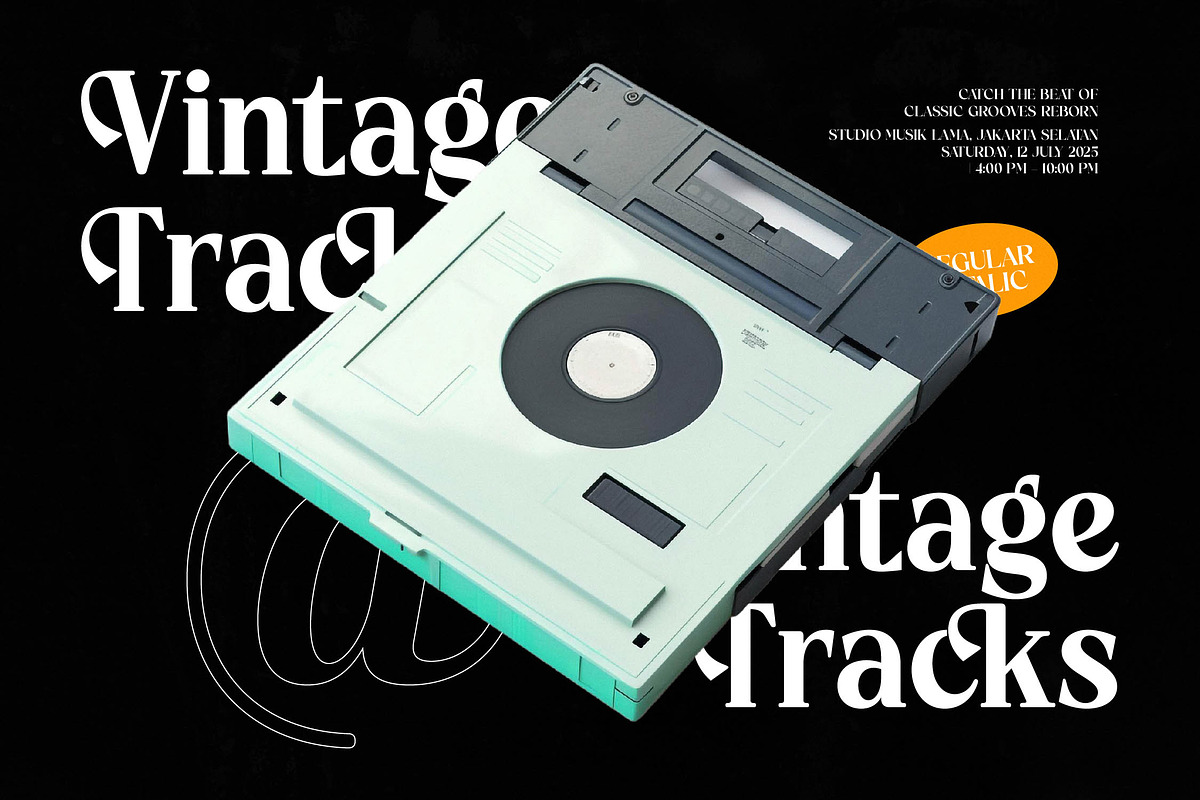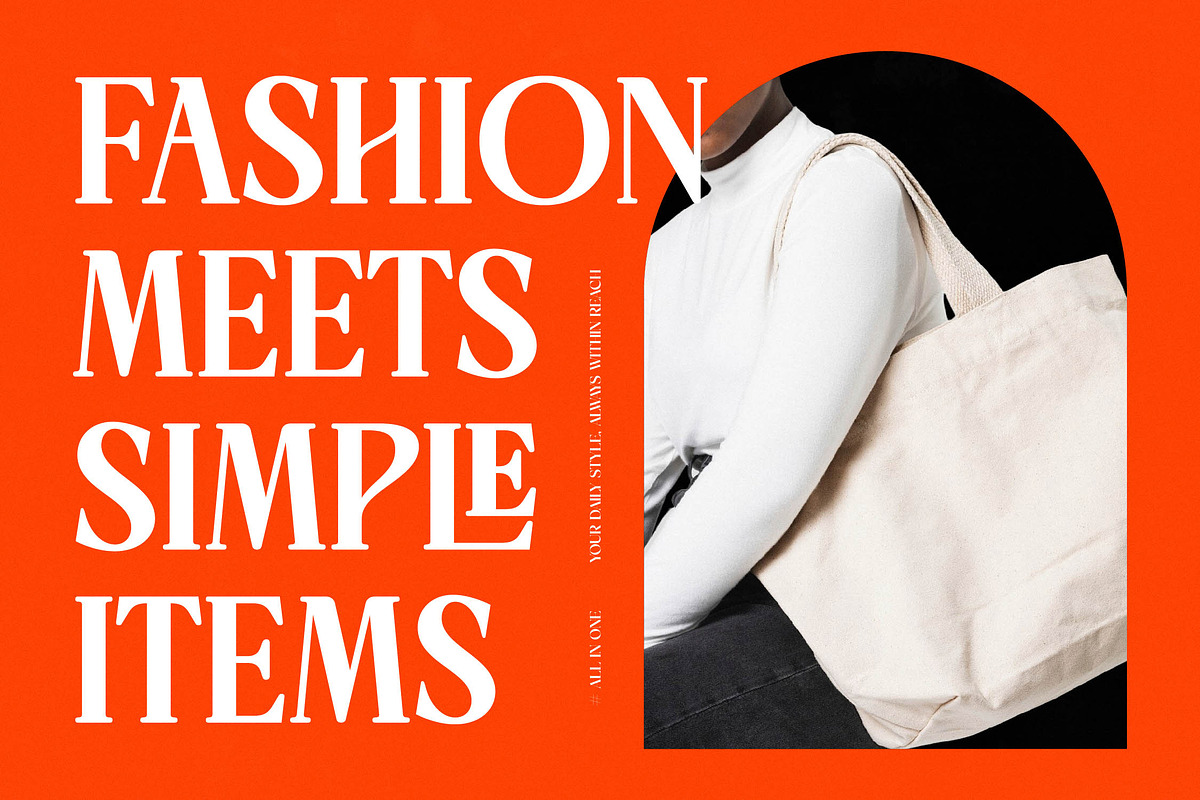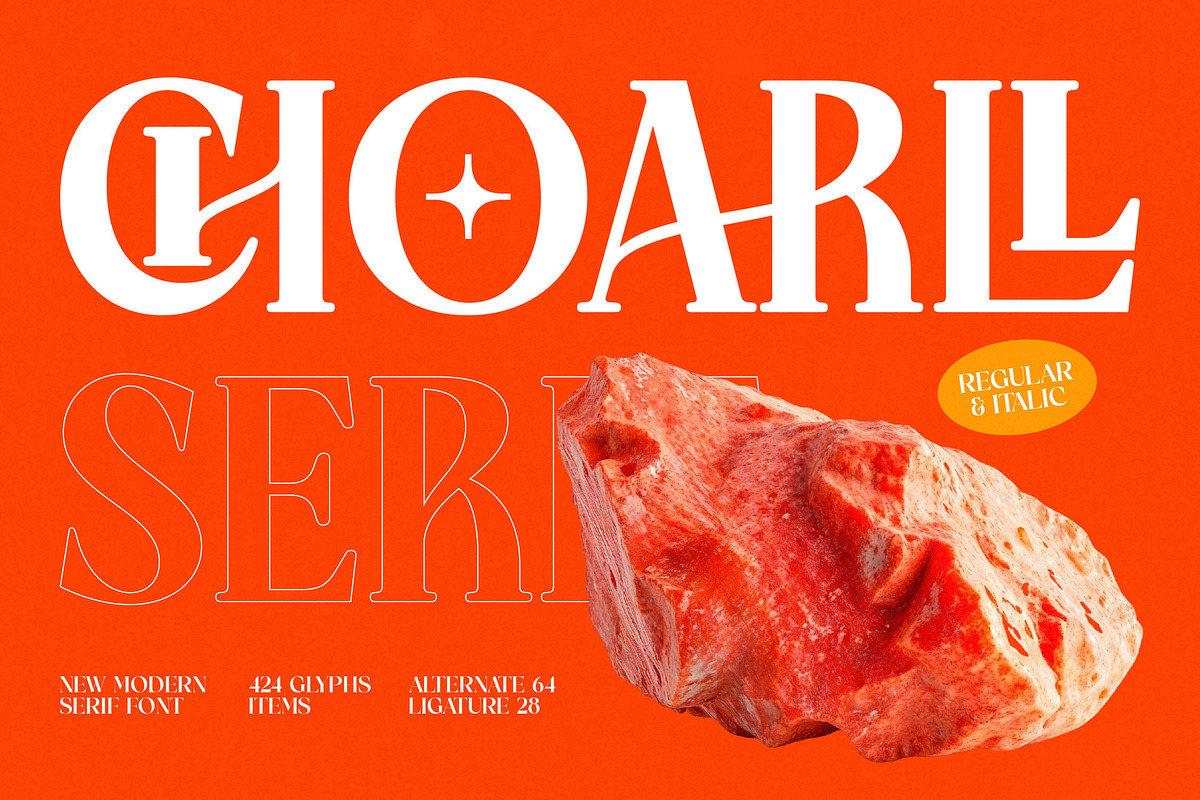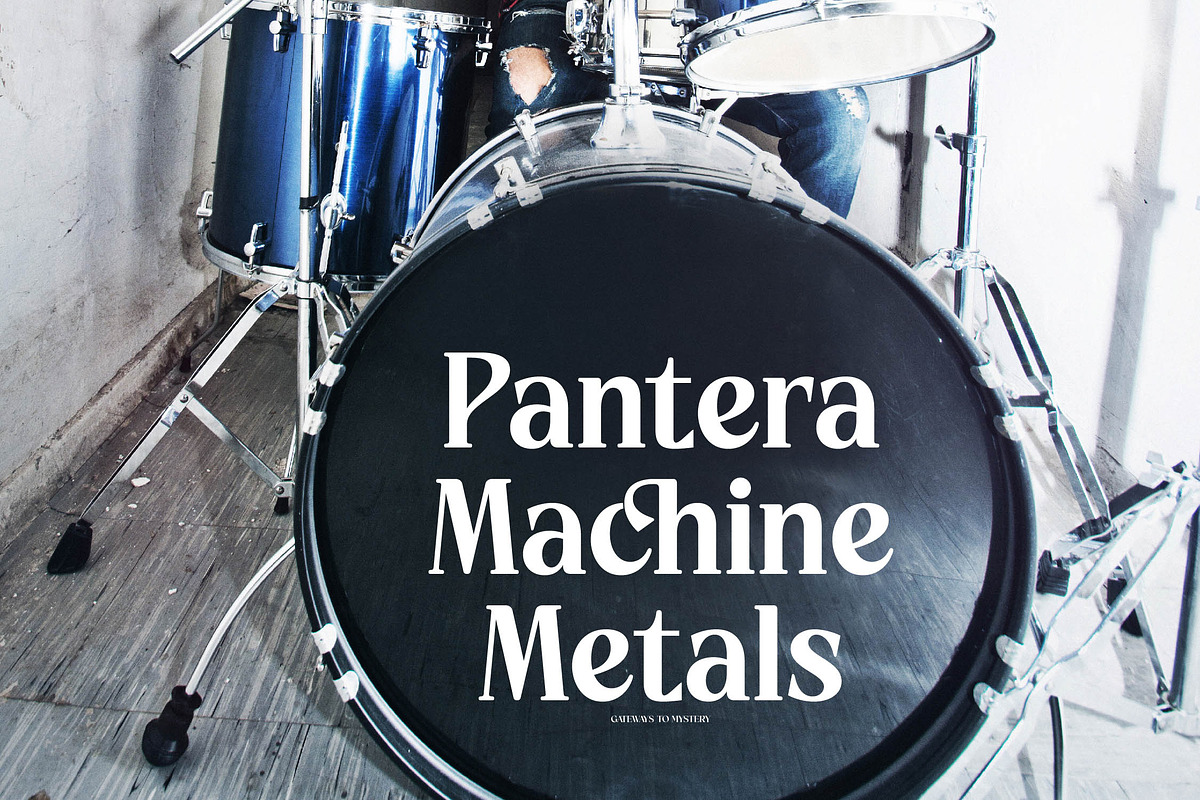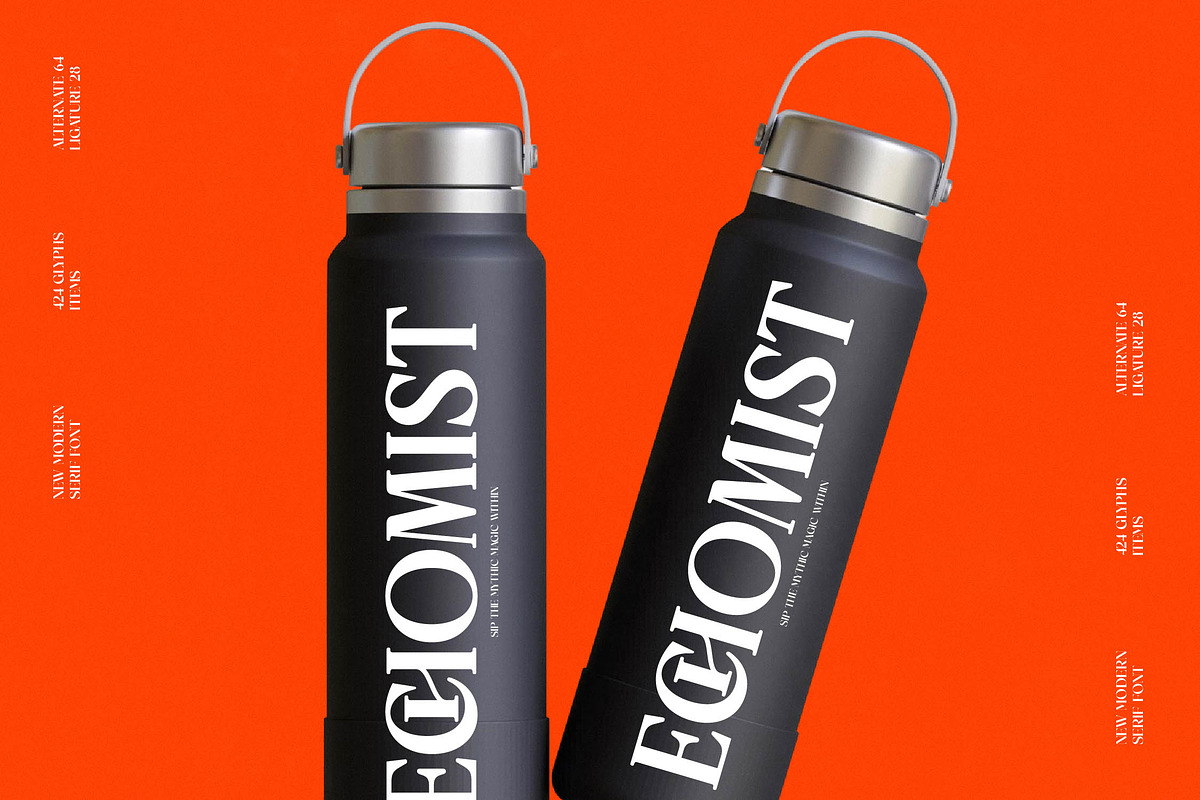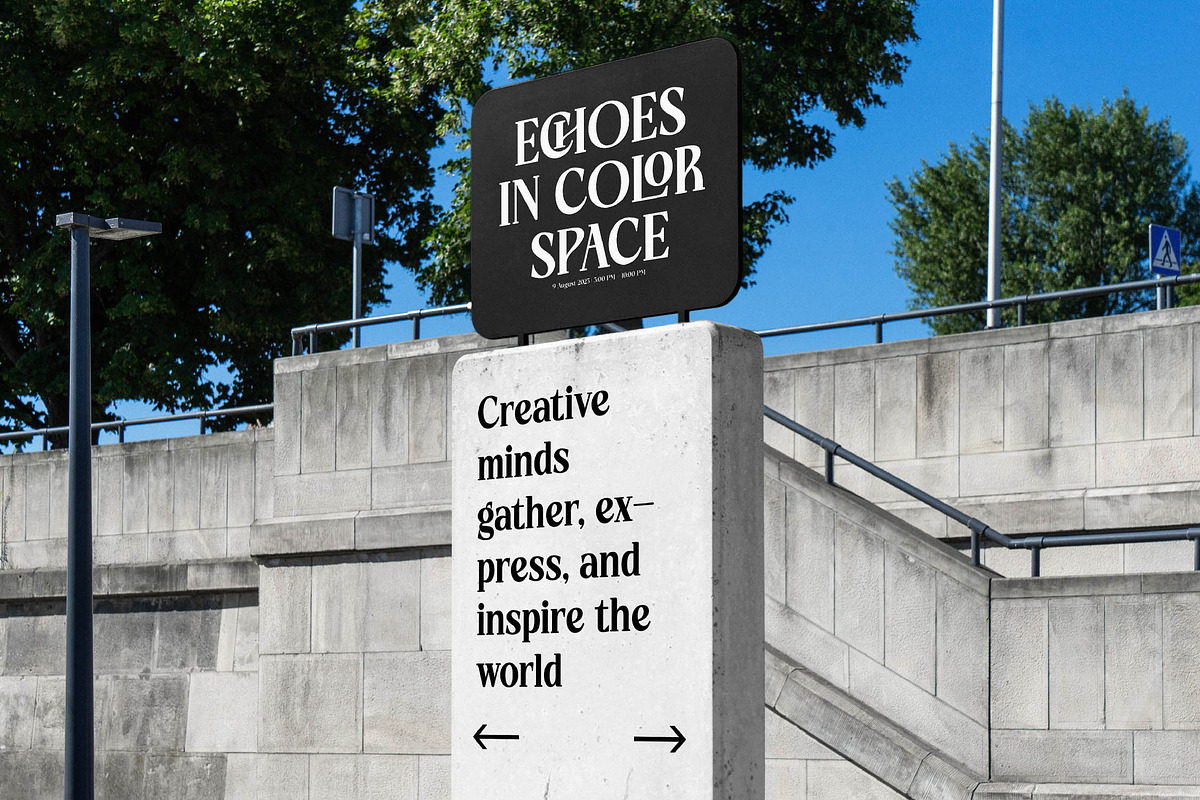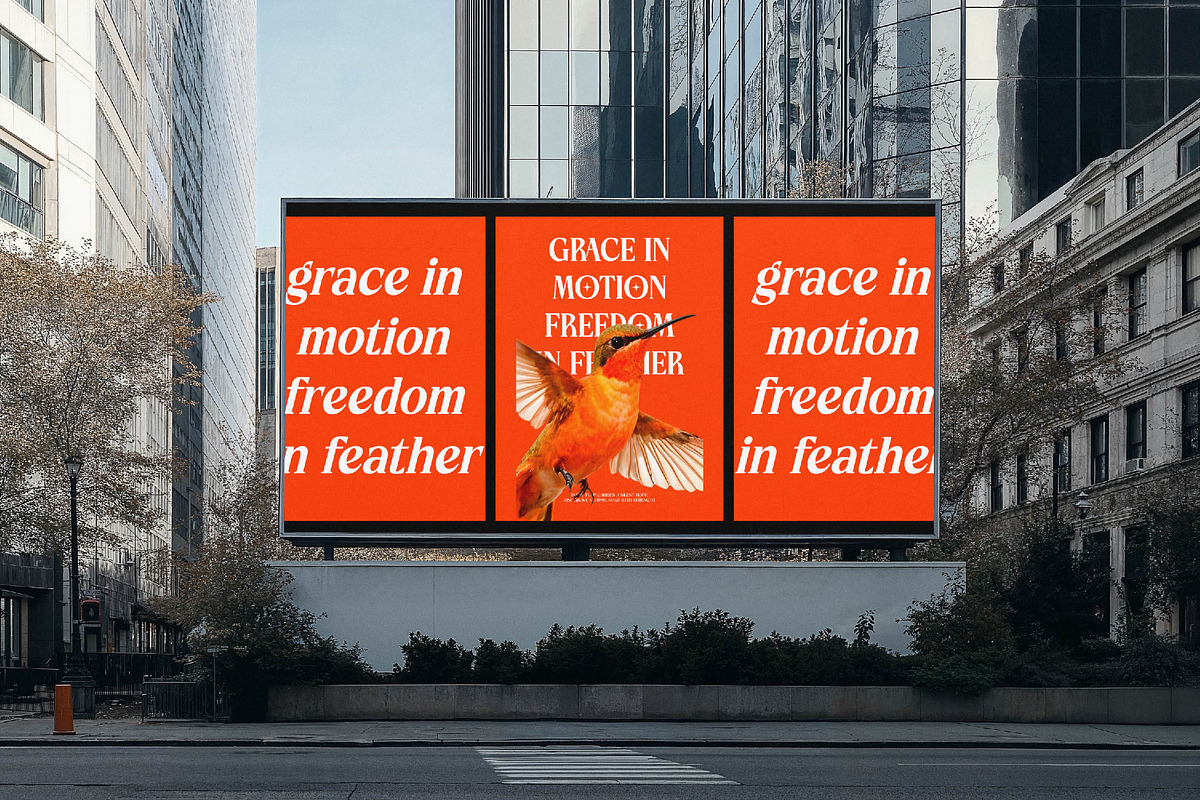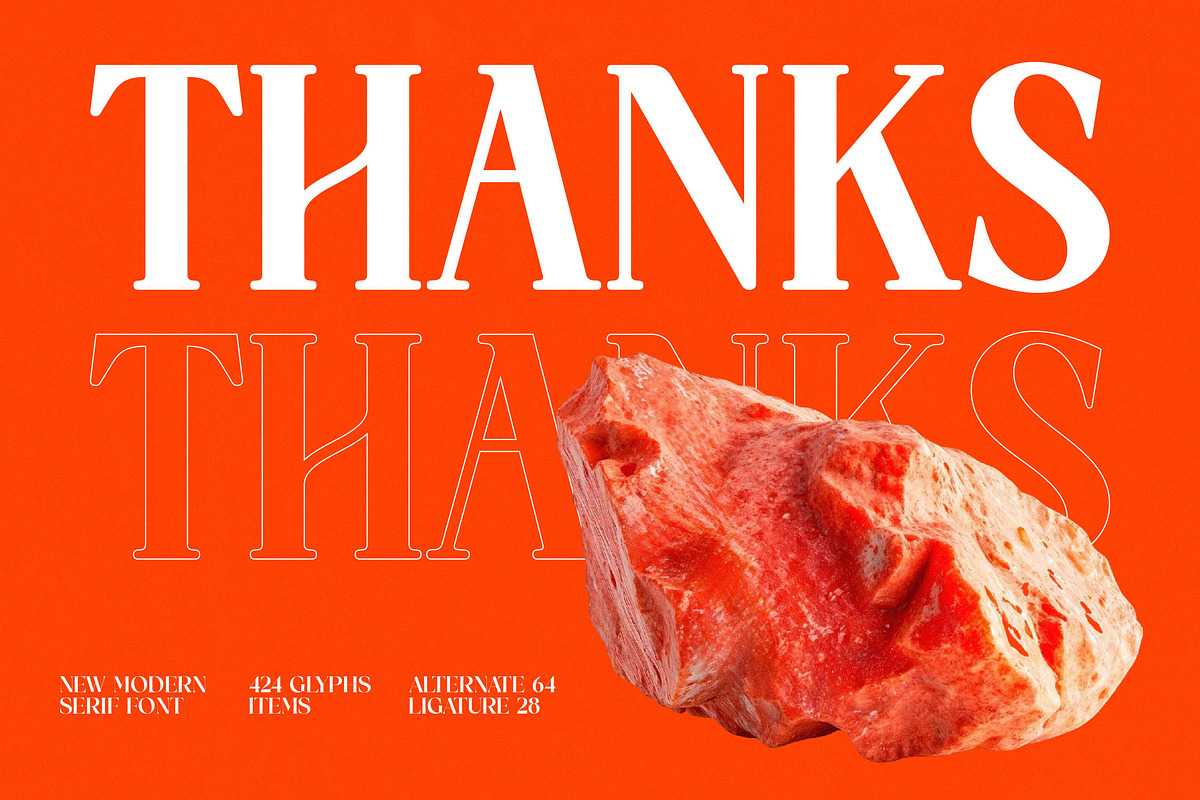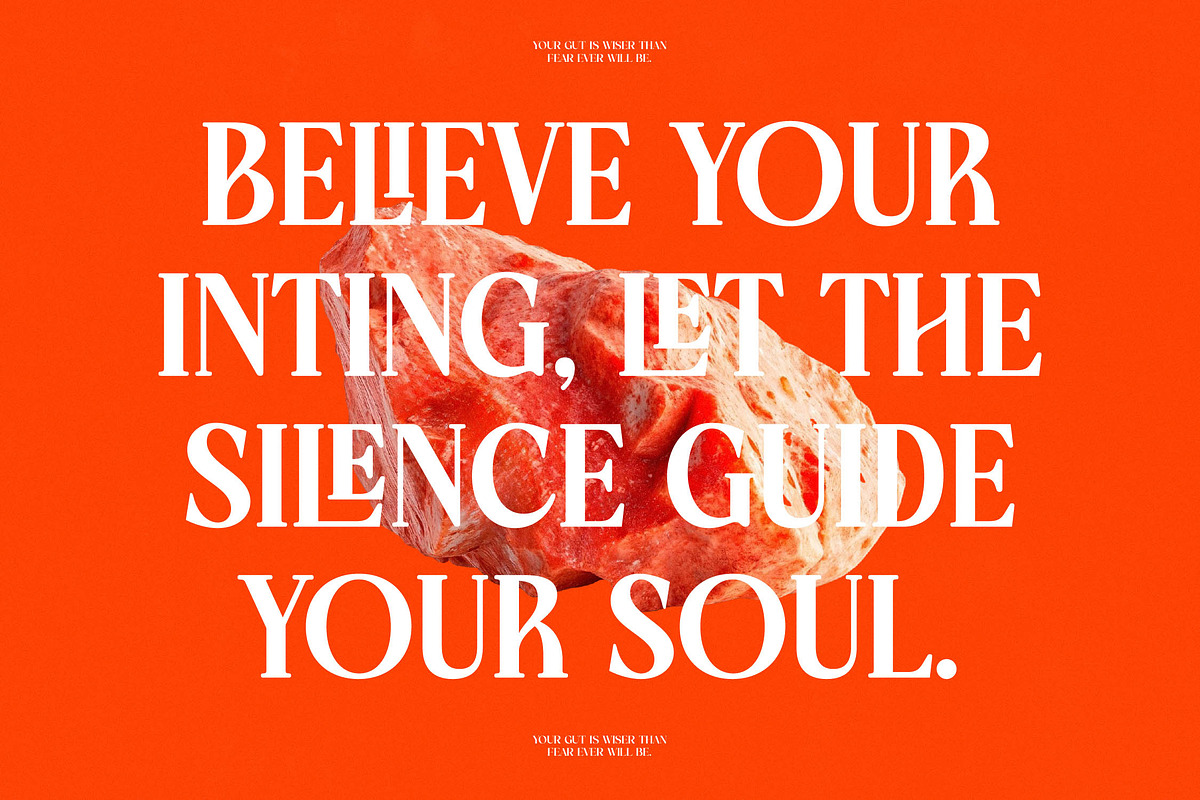
Choarll Modern Serif Display
Choarll is a masterpiece of modern elegance designed to command attention and evoke a sense of high-end sophistication. It bridges the gap between classic refinement and contemporary boldness, making it a definitive choice for designers who refuse to settle for the ordinary.
Inspired by the fluid architecture of mid-century aesthetics and the raw texture of natural elements, this typeface captures a unique juxtaposition of sharp edges and organic curves. The visual atmosphere is one of timeless luxury, reminiscent of high-fashion magazine covers and premium boutique identities.
This modern serif display exudes an undeniable luxury typography feel that is perfect for making a lasting branding impact. With its high-contrast serif construction, every character is built to provide an editorial font quality that elevates any layout from simple to spectacular.
Tapping into the current modern serif trend, this typeface is a versatile tool for creators following the rise of editorial display fonts. It satisfies the demand for character-driven typography that feels both nostalgic and forward-thinking, aligning perfectly with today’s visual aesthetic.
Whether you are working on a high-end logo design or cohesive branding projects, this font provides the versatility needed for success. It is an ideal choice for editorial spreads, premium packaging, romantic wedding stationery, and bold fashion advertisements.
The typeface is packed with functional beauty, including a wide array of ligatures and alternates that allow for custom letter pairings. It also features beautiful swashes and full multilingual support with international characters to ensure your message reaches a global audience.
- Ligature 028 Alternate 064